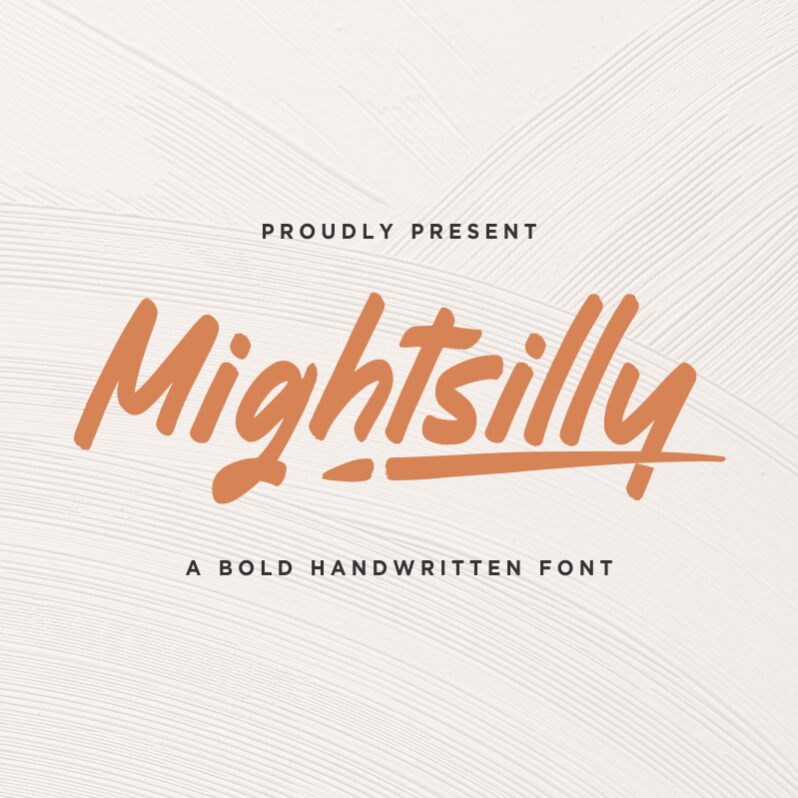
Mightsilly
Looking for a playful and quirky handwriting font that will add a touch of whimsy to your project? Look no further than Mightsilly, created by Qwrtype Foundry. With its semi-condensed width, this font is perfect for adding a touch of character to invitations, greeting cards, posters, and more. The fun and lighthearted styling of Mightsilly makes it an ideal choice for anything from children's book covers to comedy show flyers. Whether you're looking to add some personality to your brand or simply want to inject some fun into your next project, Mightsilly is the perfect choice.